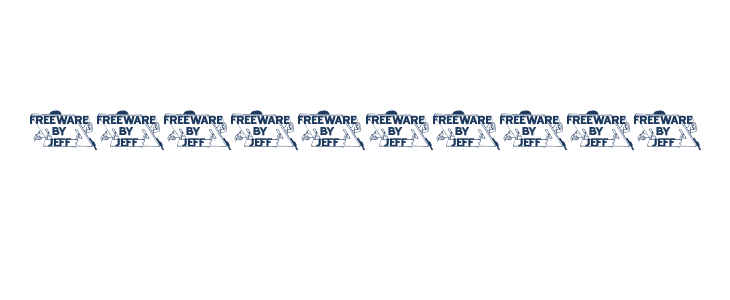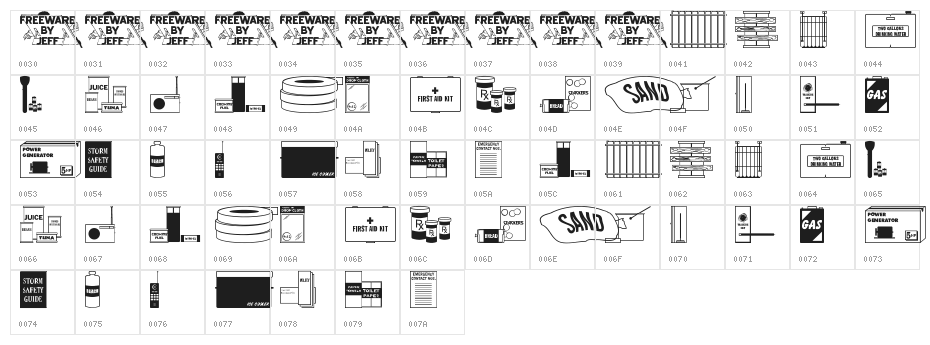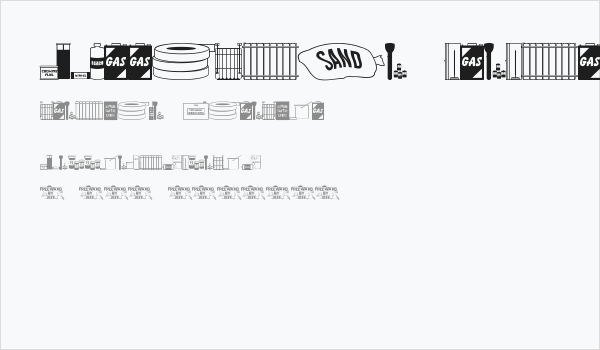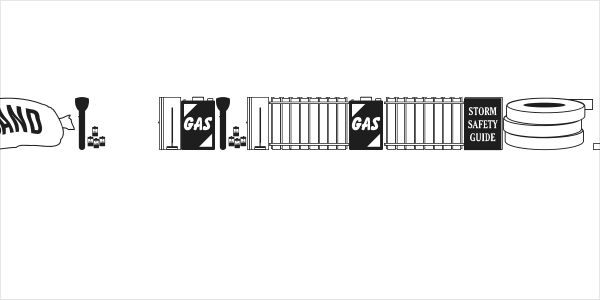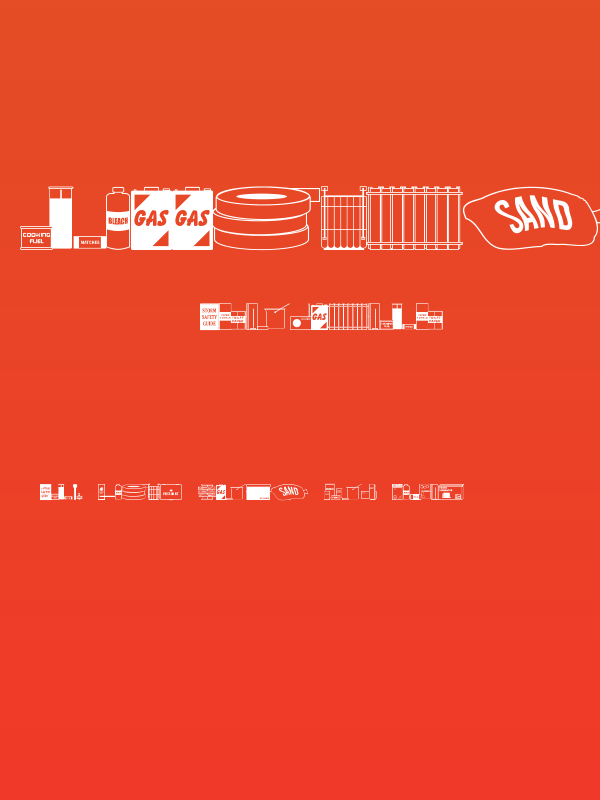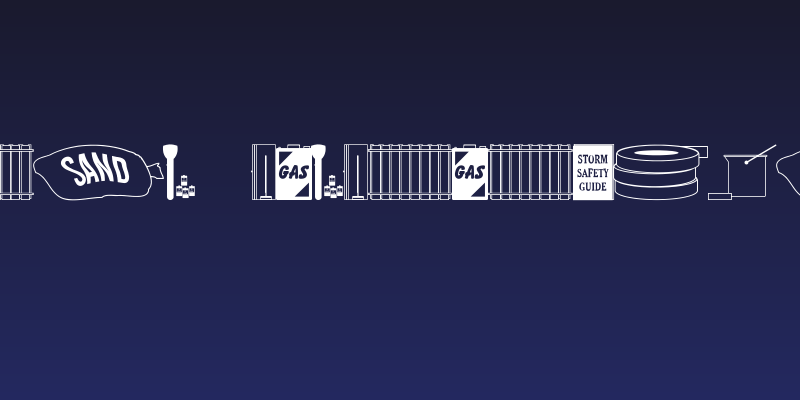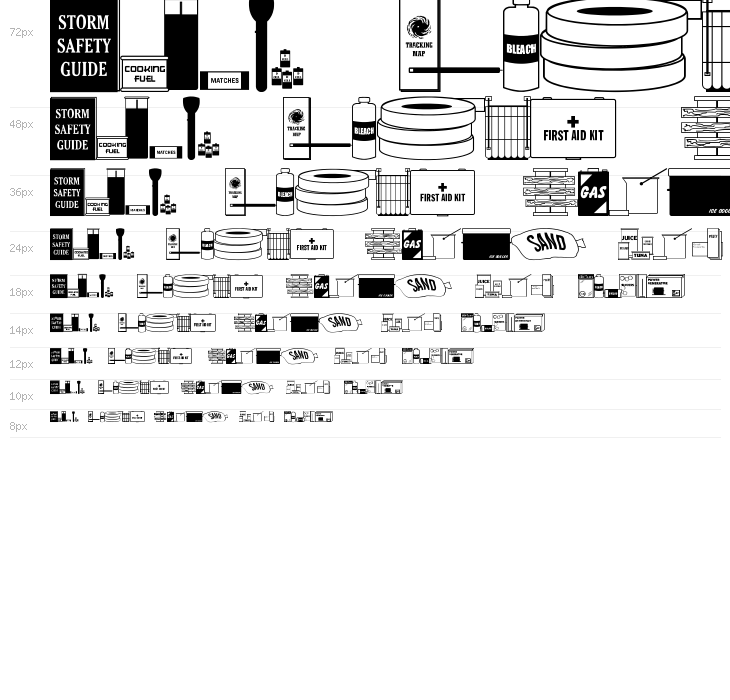
Hurricane Preparations JL Font
Hurricane Preparations JL Description
This is not a valid font. The image contains a series of icons and illustrations related to hurricane preparations, such as sandbags, power generators, first aid kits, and emergency contact information. These elements are designed to visually represent items and actions necessary for hurricane readiness, rather than typographic characters.
| Overall Style | Informative, Practical |
| Use Case | Informational graphics, Educational materials |
| Proposed Projects | This set of icons could be used for educational materials, emergency preparedness guides, or informational posters about hurricane safety. |